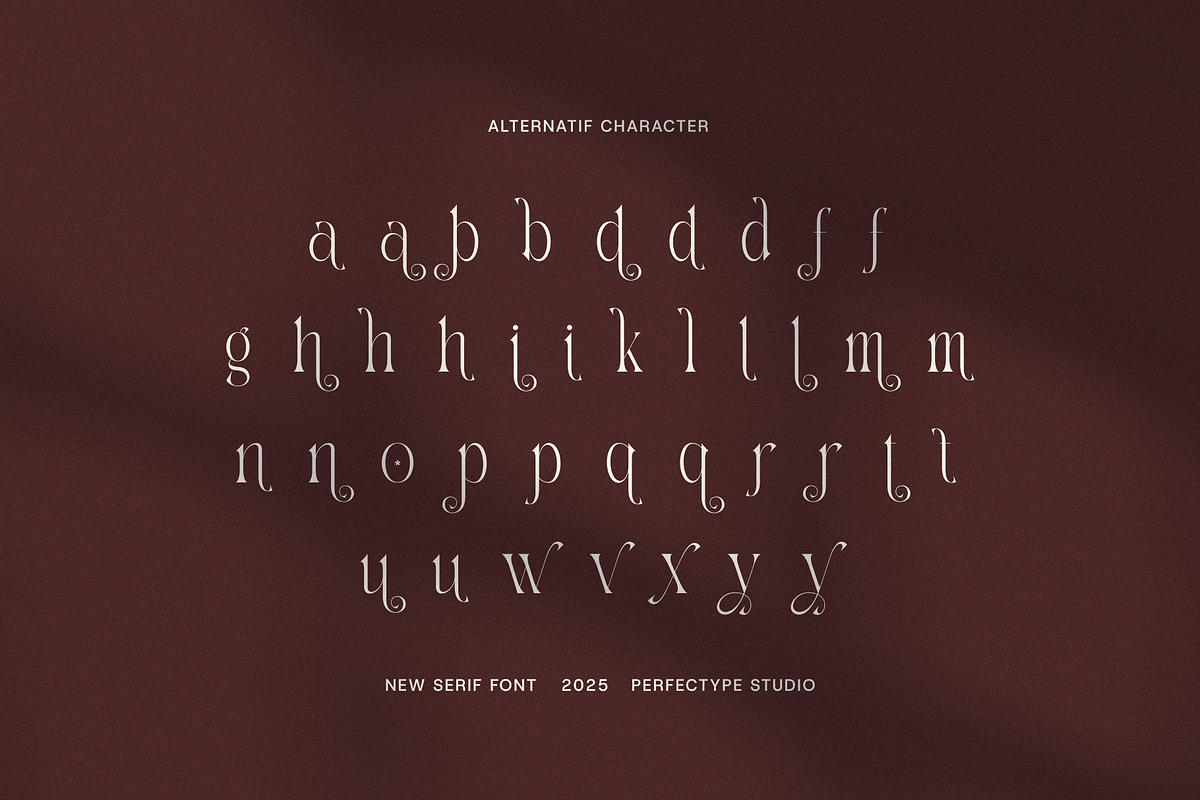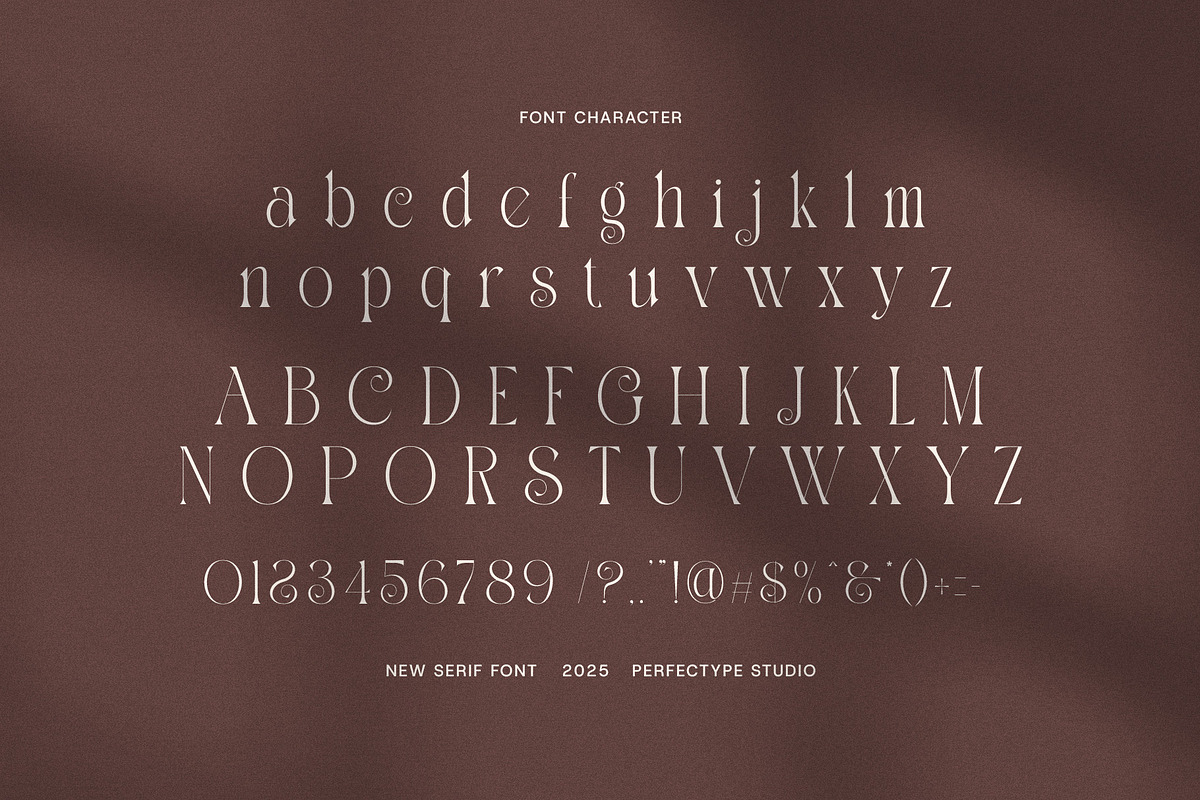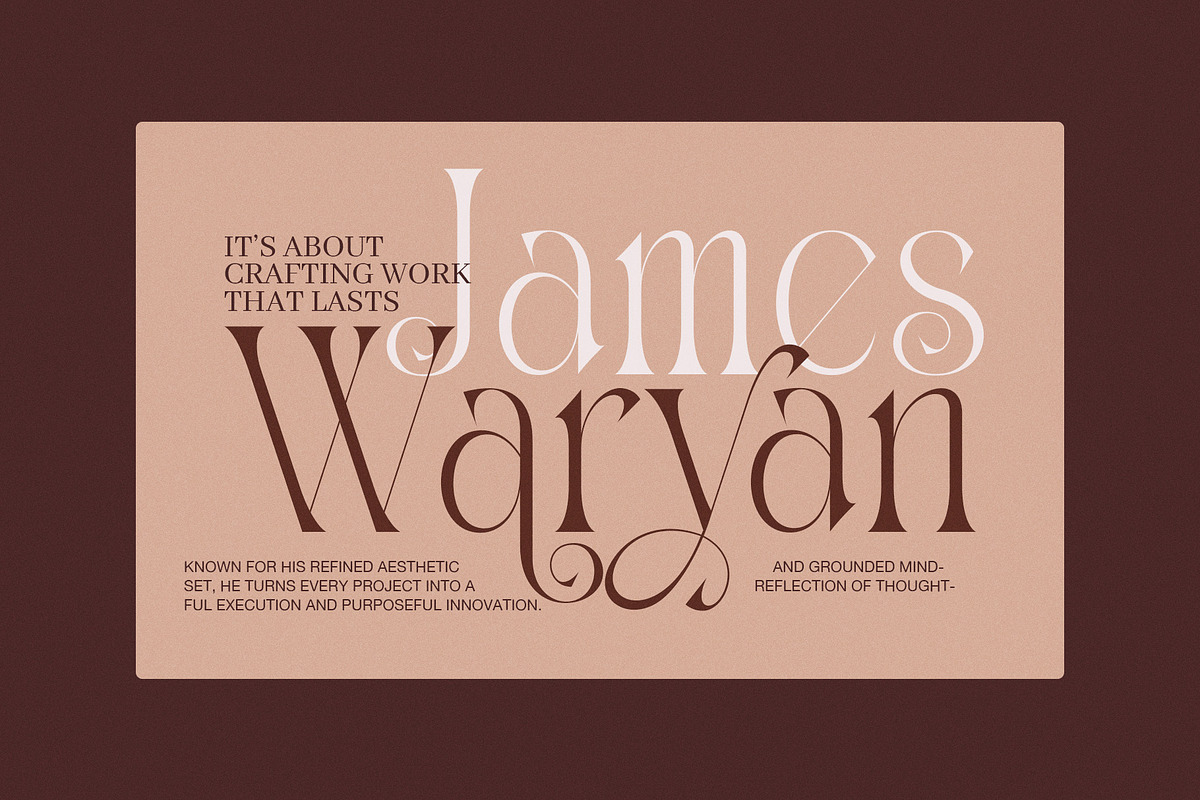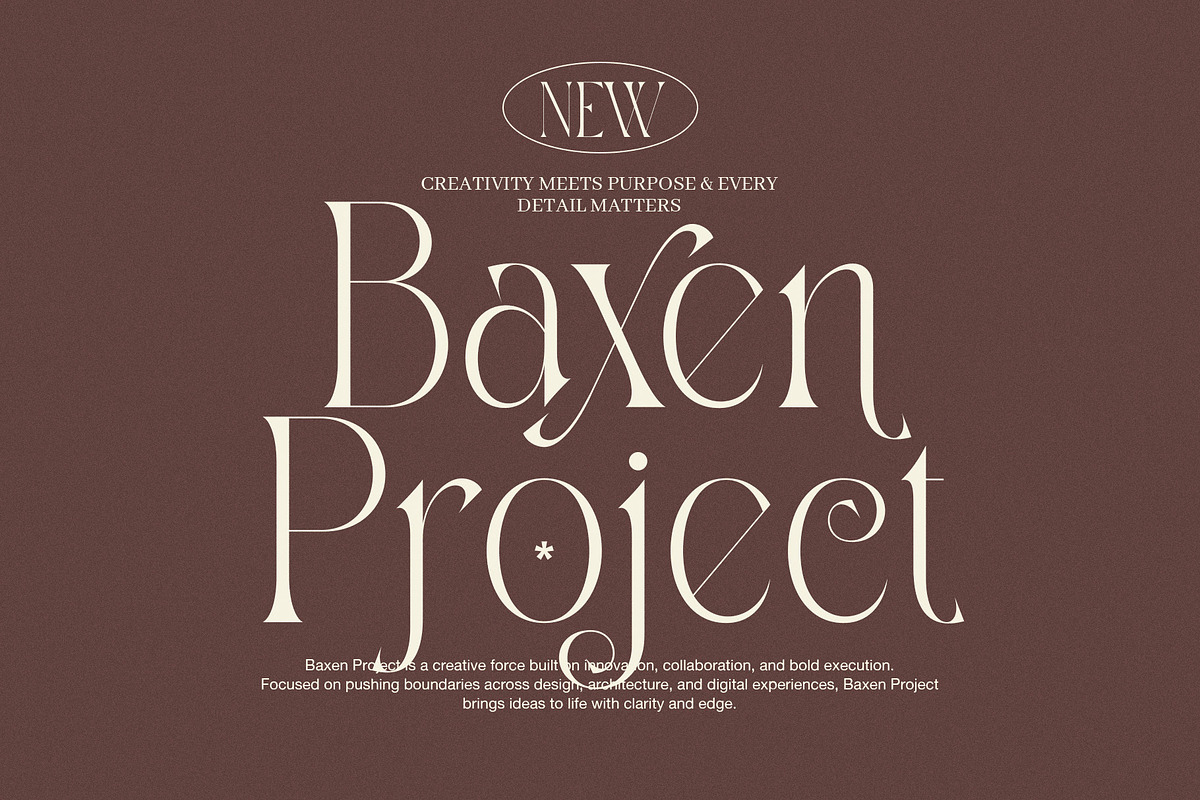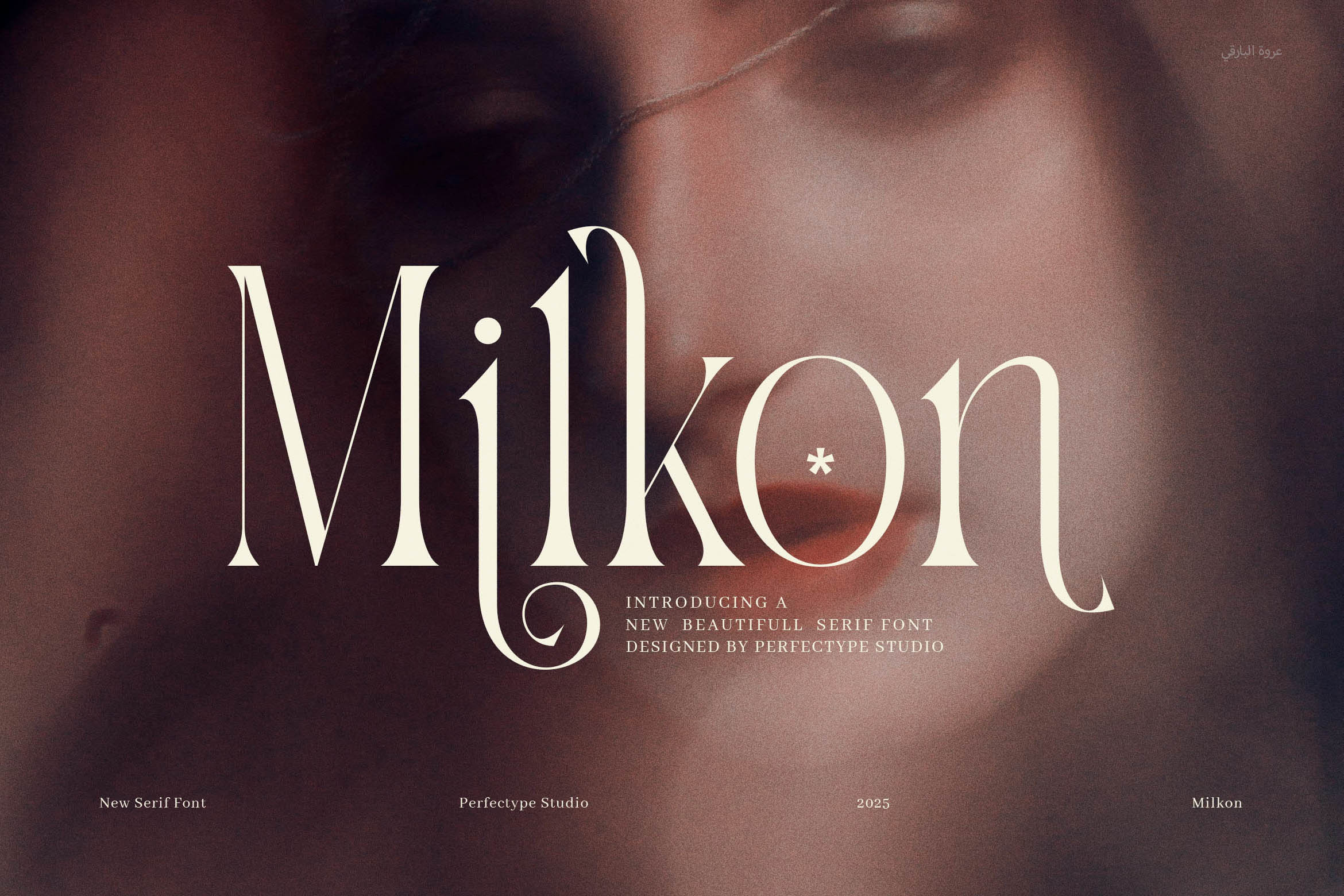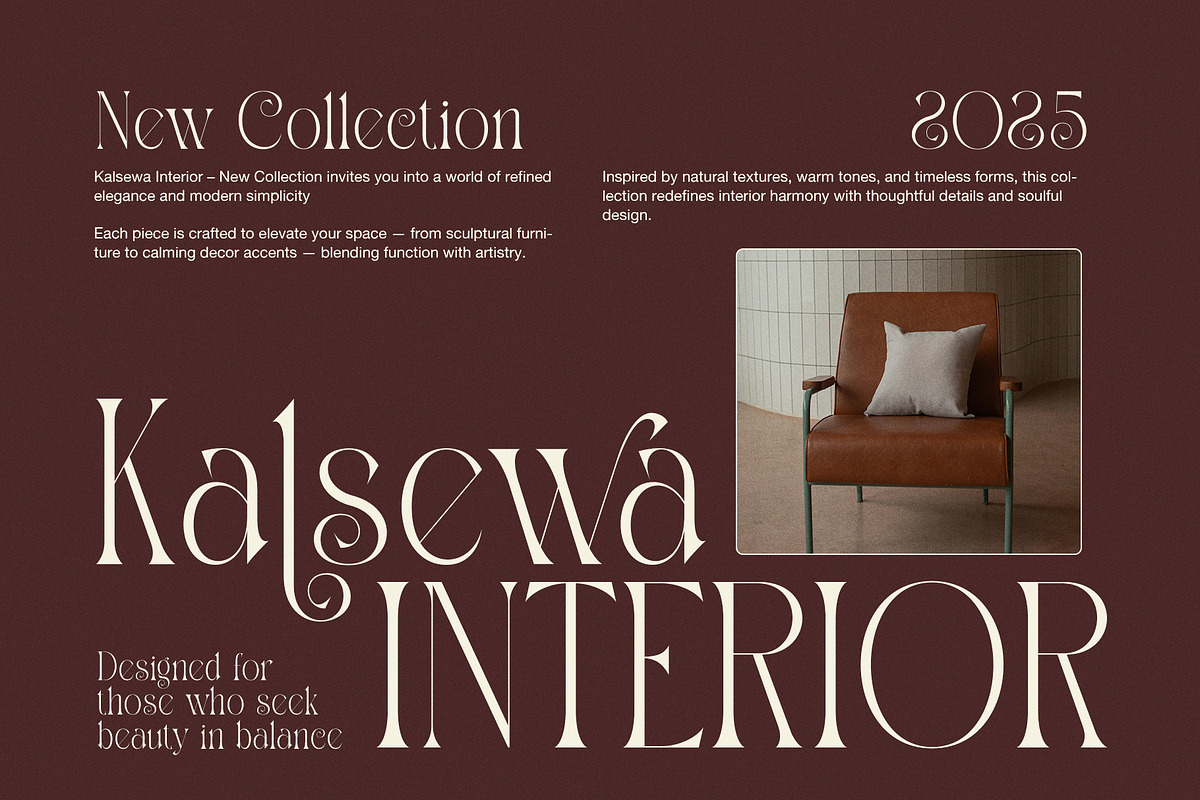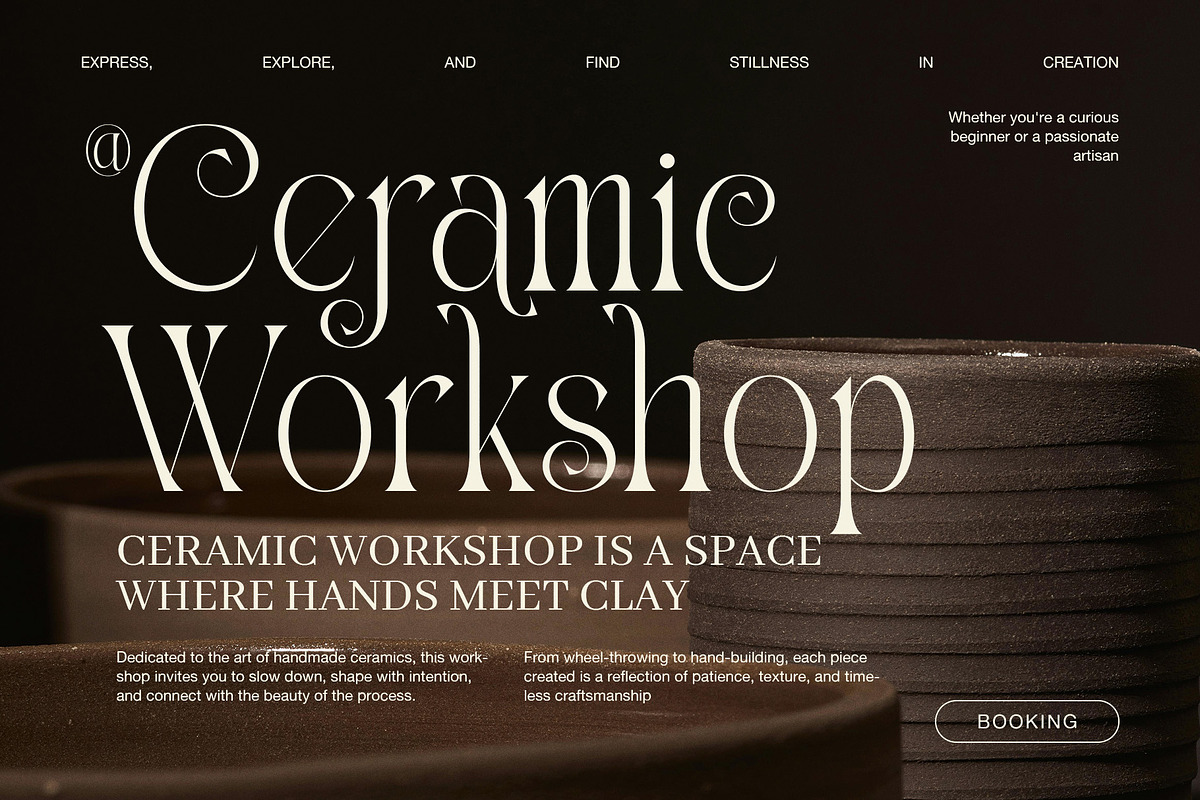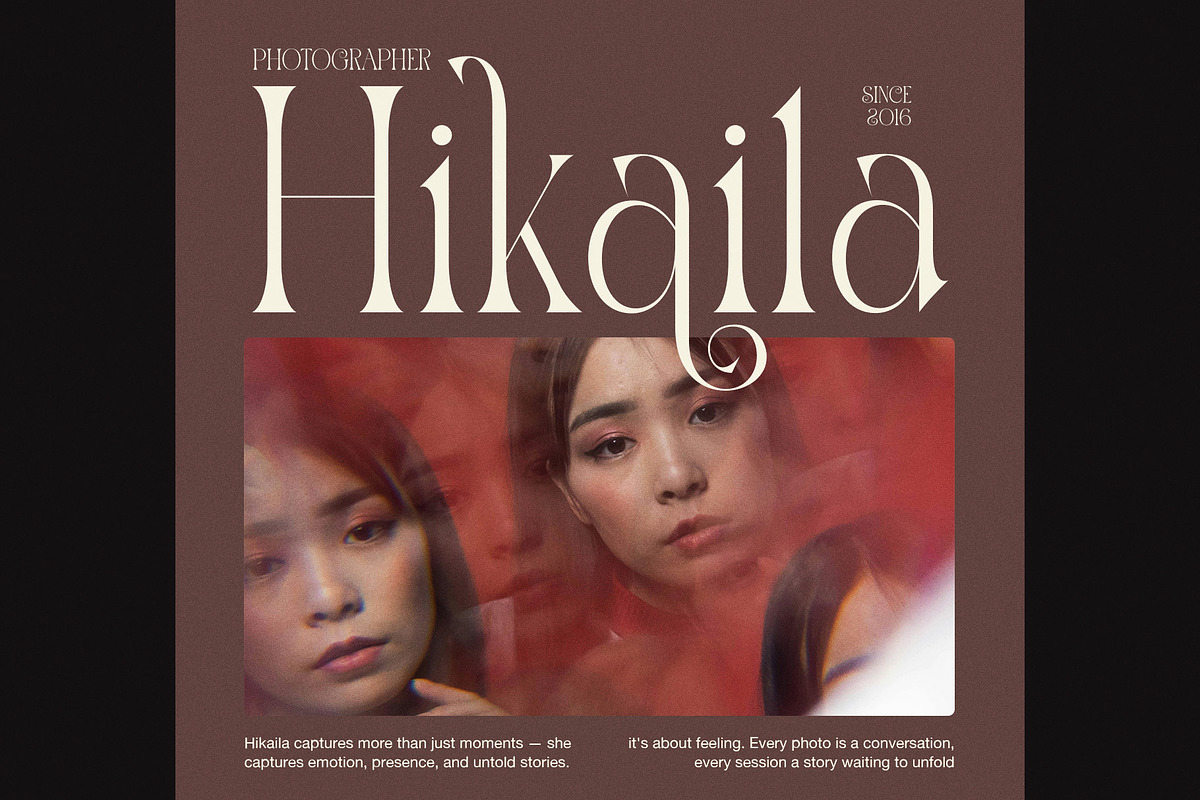
Milkon Elegant Serif Font
Milkon Elegant Serif Font is a modern, classy serif typeface that blends elegance with versatility. Designed with refined curves, clear lines, and thoughtful spacing, it brings a luxurious yet clean look to any design project.
This font is not only stylish—it’s also functional. Because it features smart ligatures, Milkon adds smooth connections between characters. These subtle ligatures enhance visual flow and give your text a custom, handcrafted feel without making it hard to read.
Milkon's proportions are perfectly balanced, making it ideal for both print and digital designs. Whether you're working on a personal brand or a professional campaign, this font adapts easily to your needs. It’s suitable for fashion, food, beauty, and lifestyle brands.
Moreover, Milkon pairs beautifully with both serif and sans-serif fonts. This makes it incredibly flexible when designing layouts for logos, product labels, magazines, and websites.
Ideal Uses for Milkon:
Logo and brand design
Luxury packaging and product labels
Website headers and hero banners
Fashion, food, or beauty branding
Magazines and editorial layouts
Elegant wedding or event invitations
Boutique shop signage
Social media graphics and ads
If you're searching for a typeface that feels both timeless and modern, Milkon Elegant Serif Font is an excellent choice. It helps elevate your message while keeping your design clean and easy to read.
Because of its simple beauty and strong readability, Milkon is a go-to serif font for designers, entrepreneurs, and creatives. With just one font, you can add class, balance, and charm to your next project.